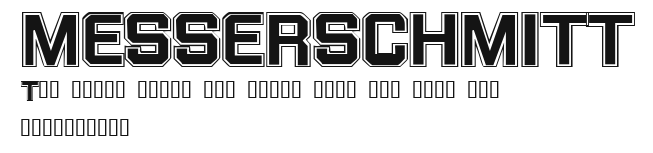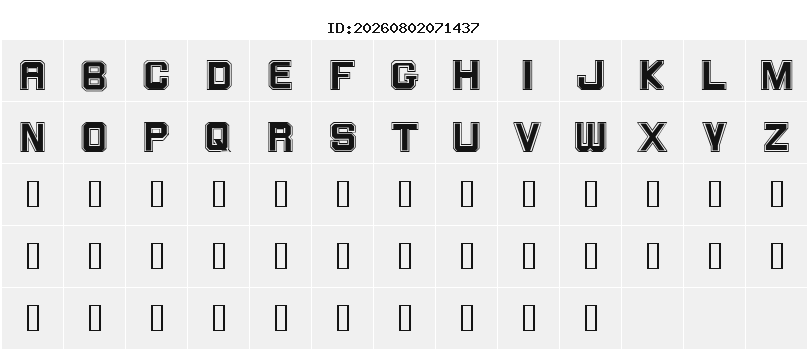
MESSERSCHMITT Preview
About MESSERSCHMITT.ttf
MESSERSCHMITT.ttf is a modern, elegant sans-serif font designed for ultimate readability and visual harmony. Perfect for branding, headlines, web design, and print materials.